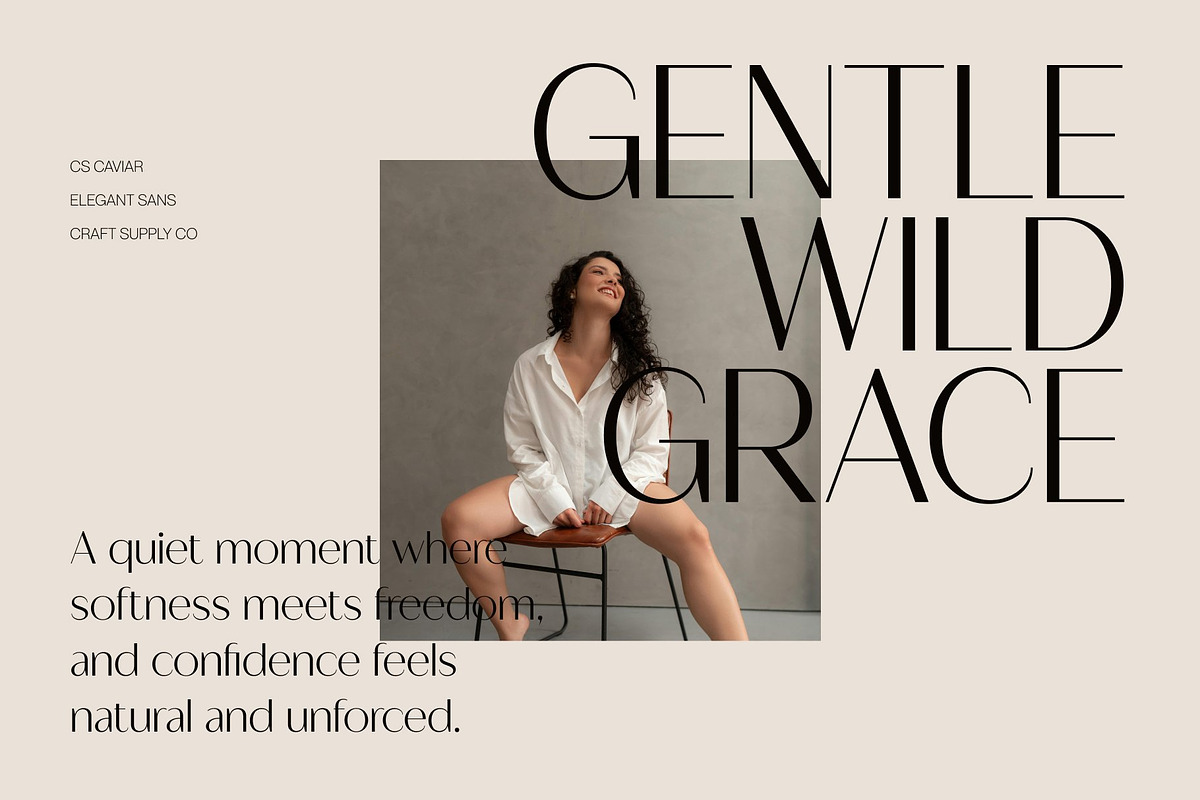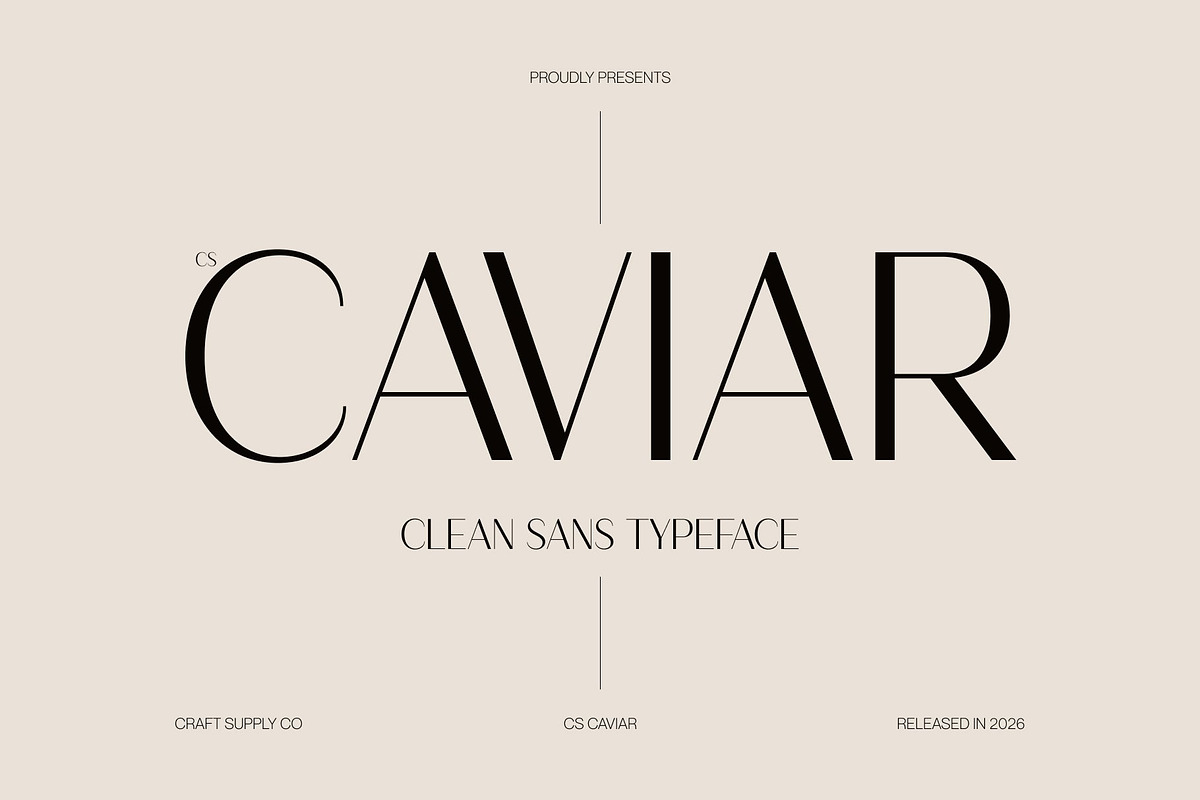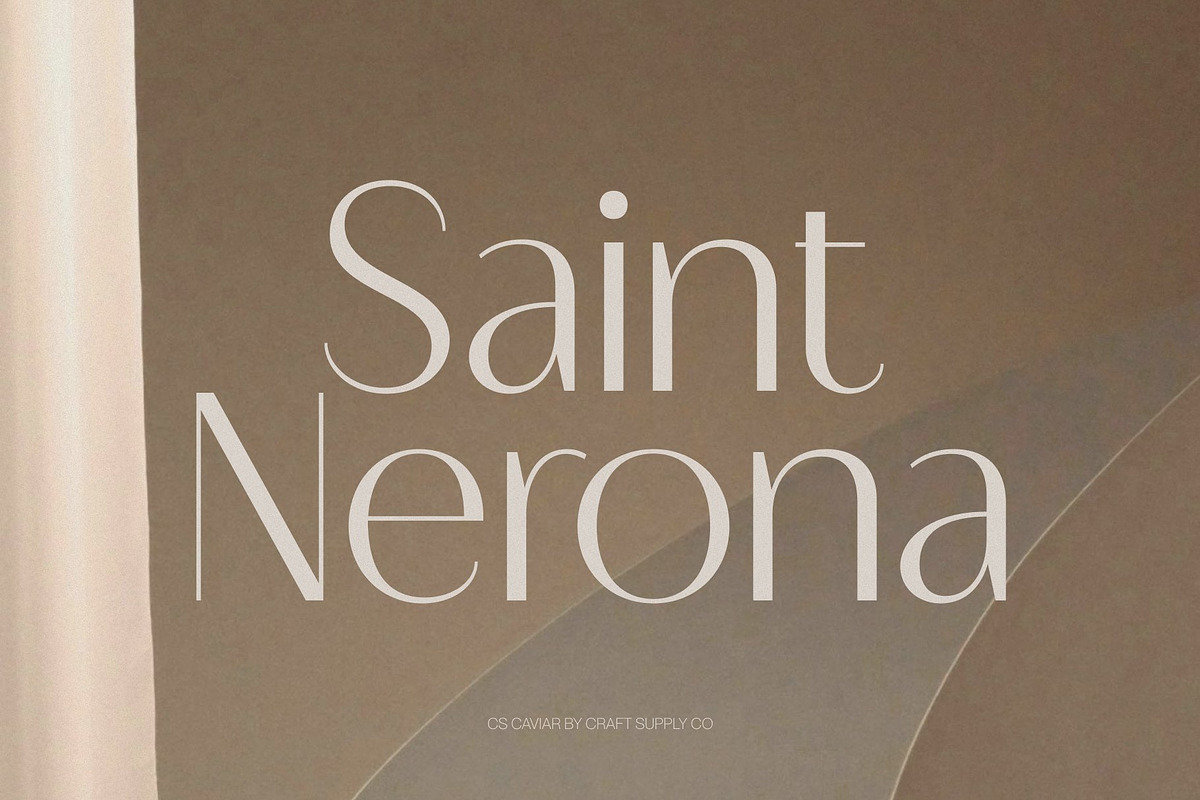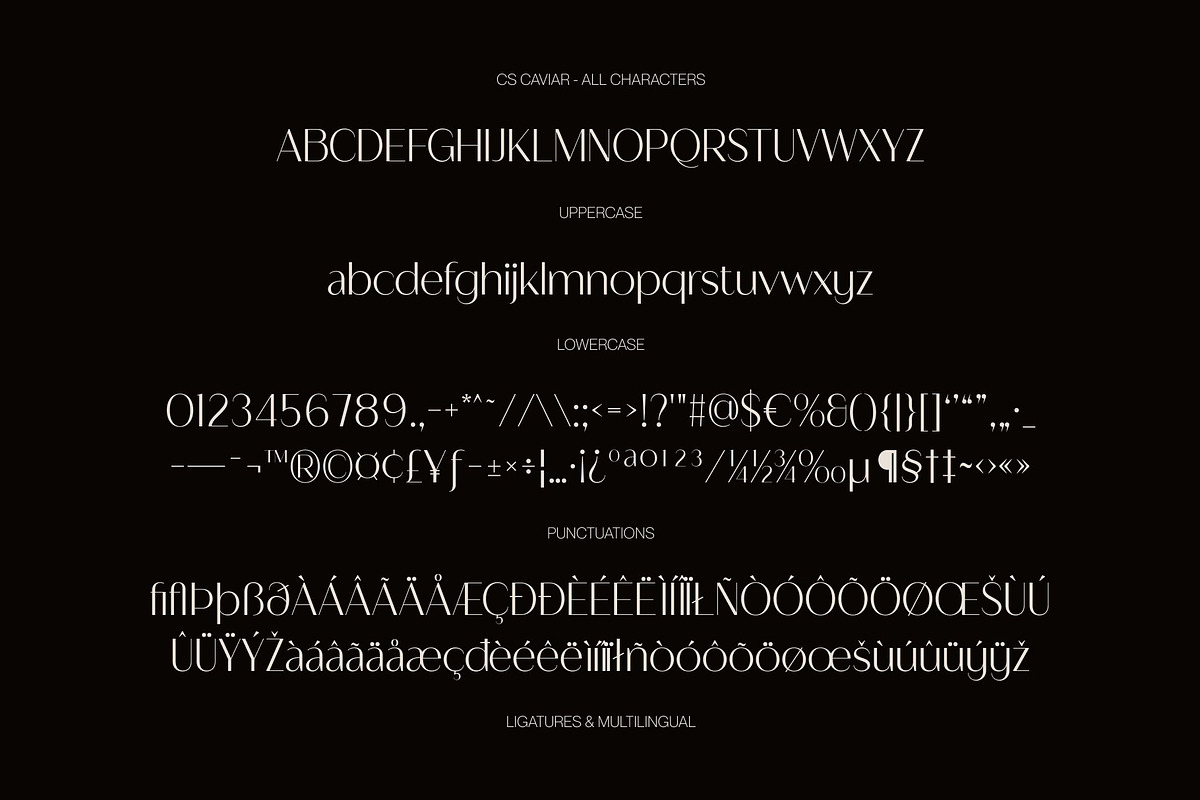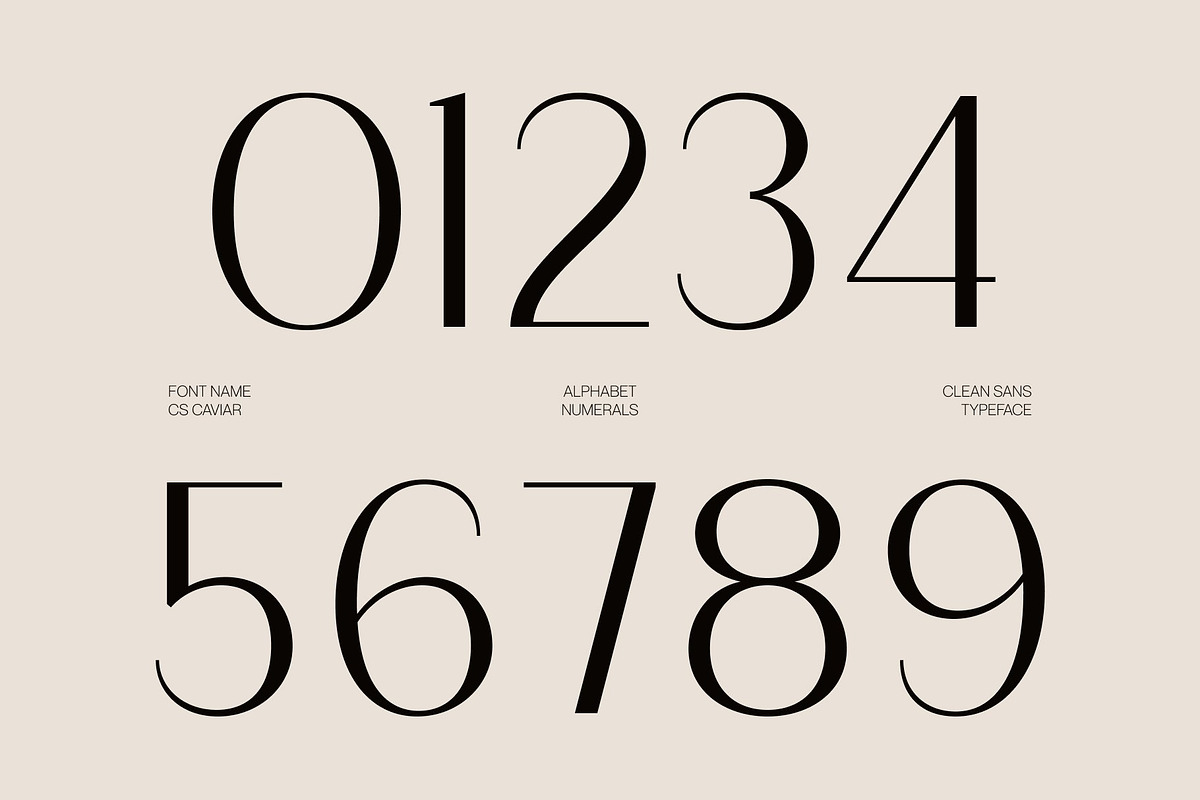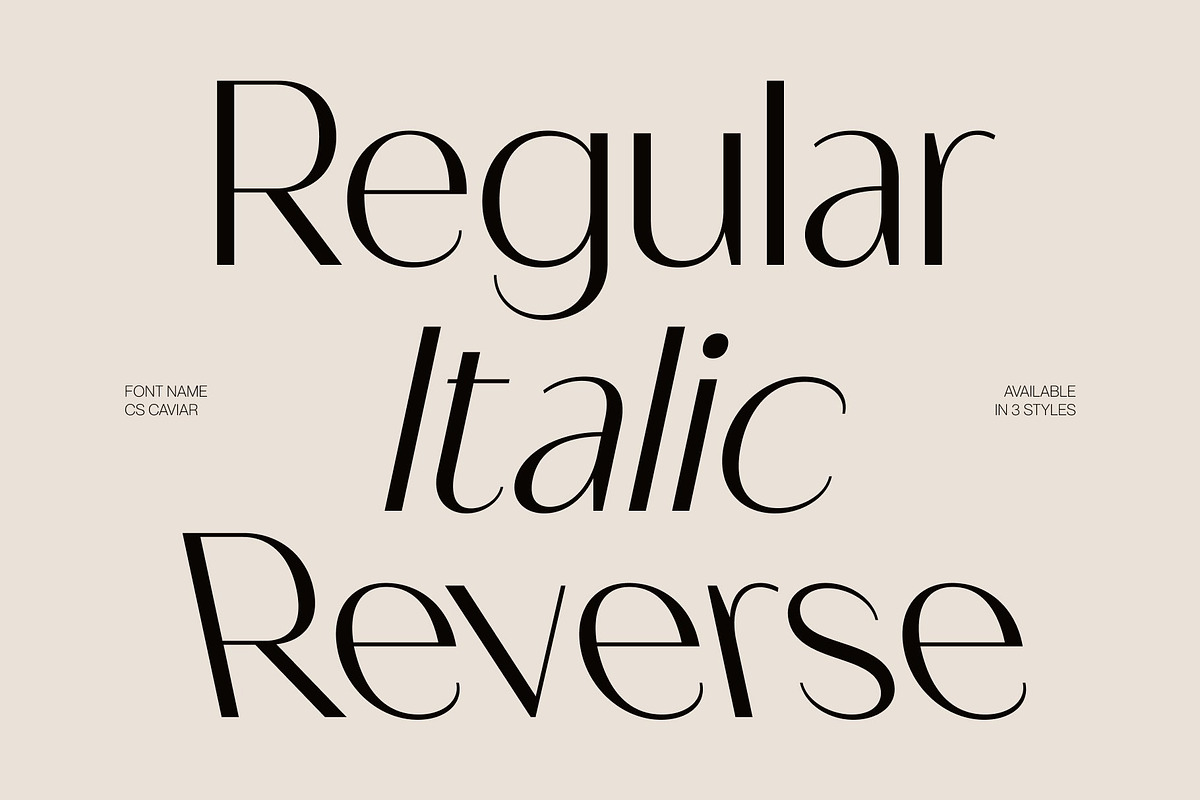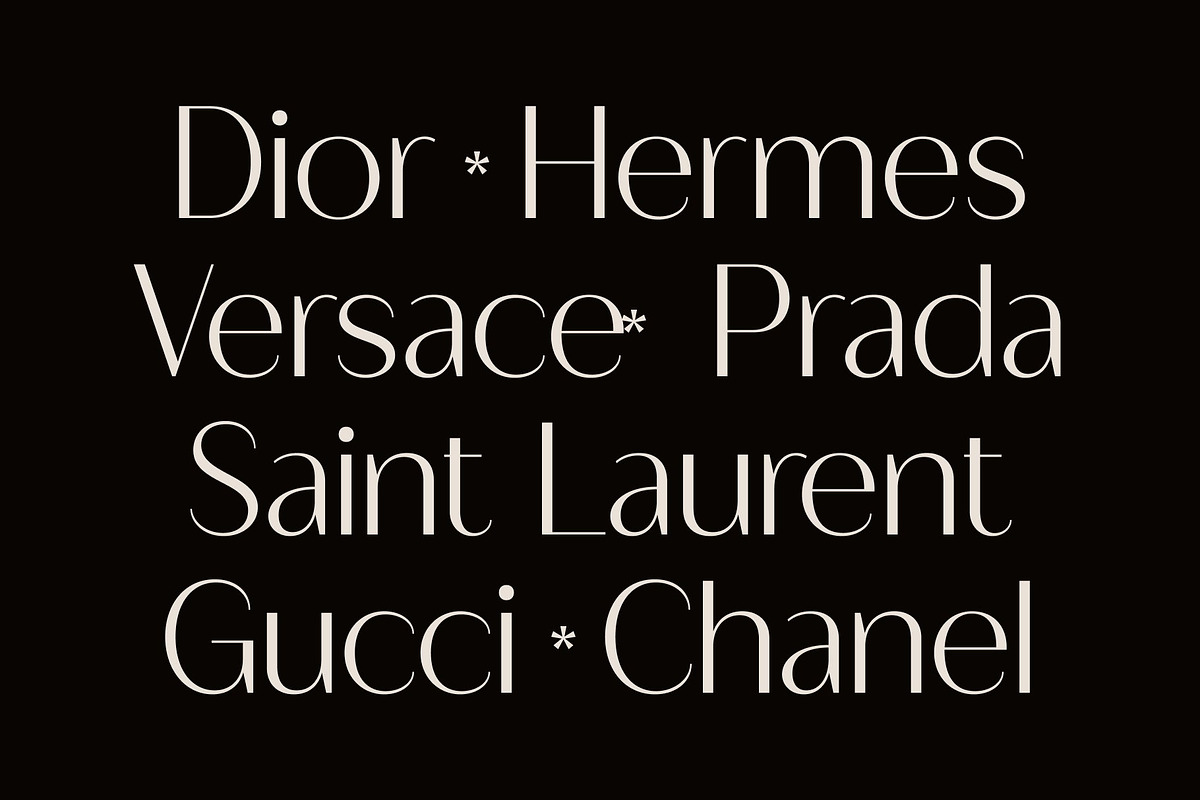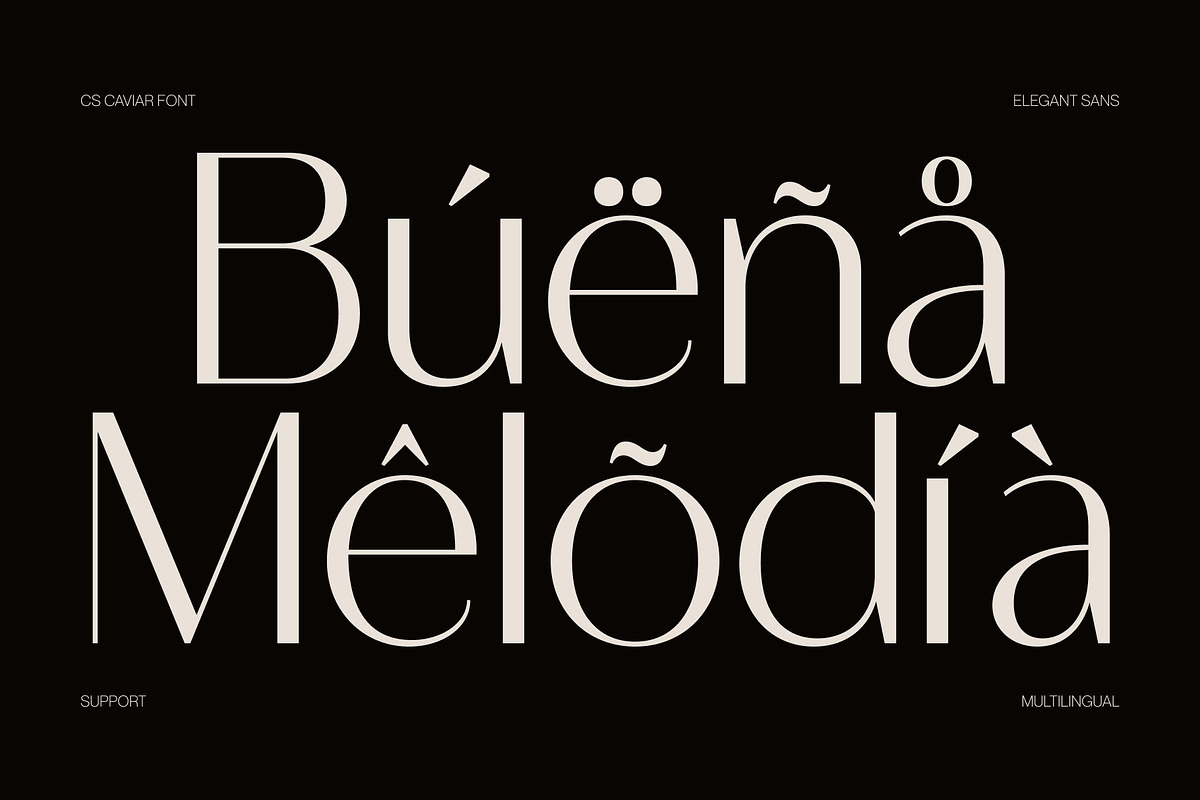
CS Caviar – Clean Sans Serif
CS Caviar – Elegant Sans Serif Font: Where Contemporary Simplicity Meets Luxury Sophistication
Clean Letterforms with Refined Elegance This is an elegant sans serif font designed with clean lines and contemporary proportions that create a sophisticated and captivating appearance. Its balanced structure and refined simplicity allow every letterform to feel polished, modern, and visually graceful. The minimalist design enhances clarity while maintaining a luxurious aesthetic.
Modern Style with Timeless Appeal This font delivers a typographic voice that feels both stylish and timeless. Its sleek forms create a smooth visual rhythm that works beautifully across premium layouts, making the font ideal for designs that seek refinement without excess decoration. The result is a typeface that communicates confidence, beauty, and professionalism.
Sophisticated Simplicity for Creative Versatility CS Caviar’s understated elegance makes it highly versatile for both bold branding and refined editorial compositions. Its clean construction adapts effortlessly across modern visual identities, allowing designers to create layouts that feel fresh, aesthetic, and high-end.
Perfect for Luxury Branding, Fashion, and Editorials This is ideal for luxury branding, fashion magazines, editorial layouts, beauty campaigns, and creative projects seeking a sophisticated and aesthetically pleasing look. Its refined sans serif forms make it perfect for logos, packaging, magazine titles, invitations, and premium promotional materials.
CS Caviar Regular
CS Caviar Italic
CS Caviar Reverse Italic